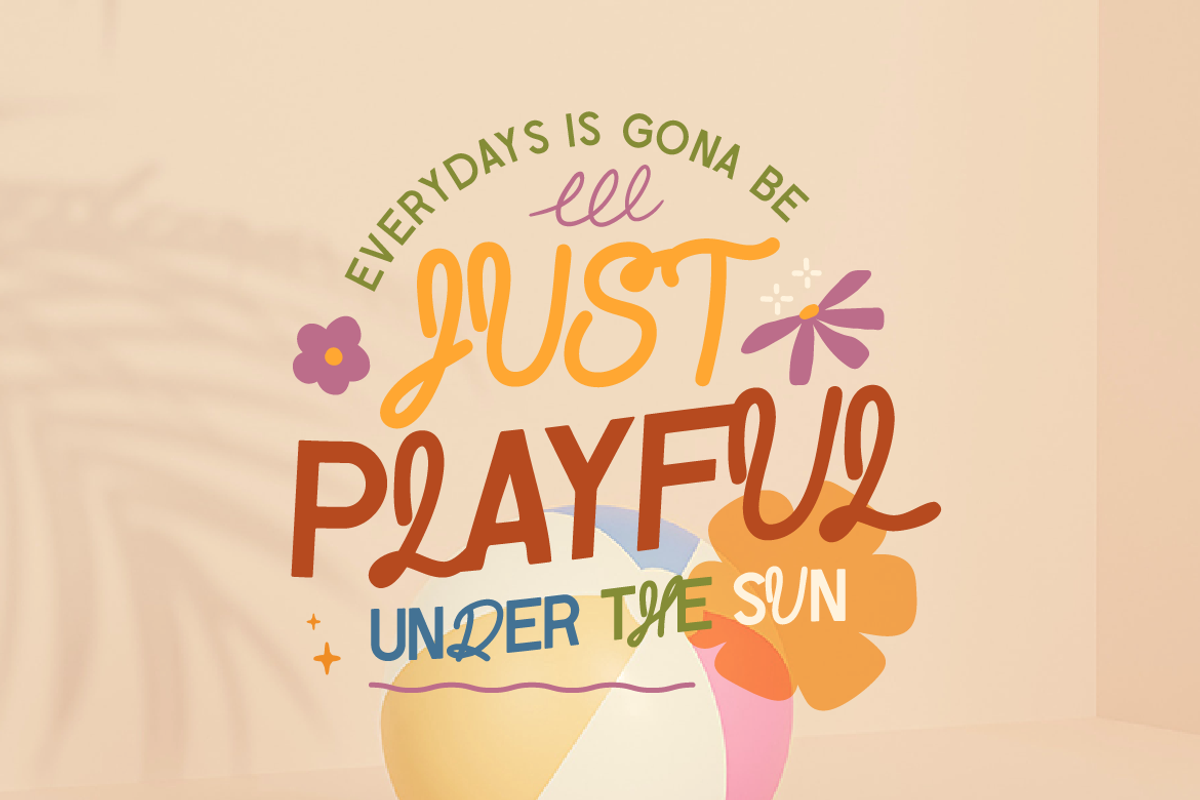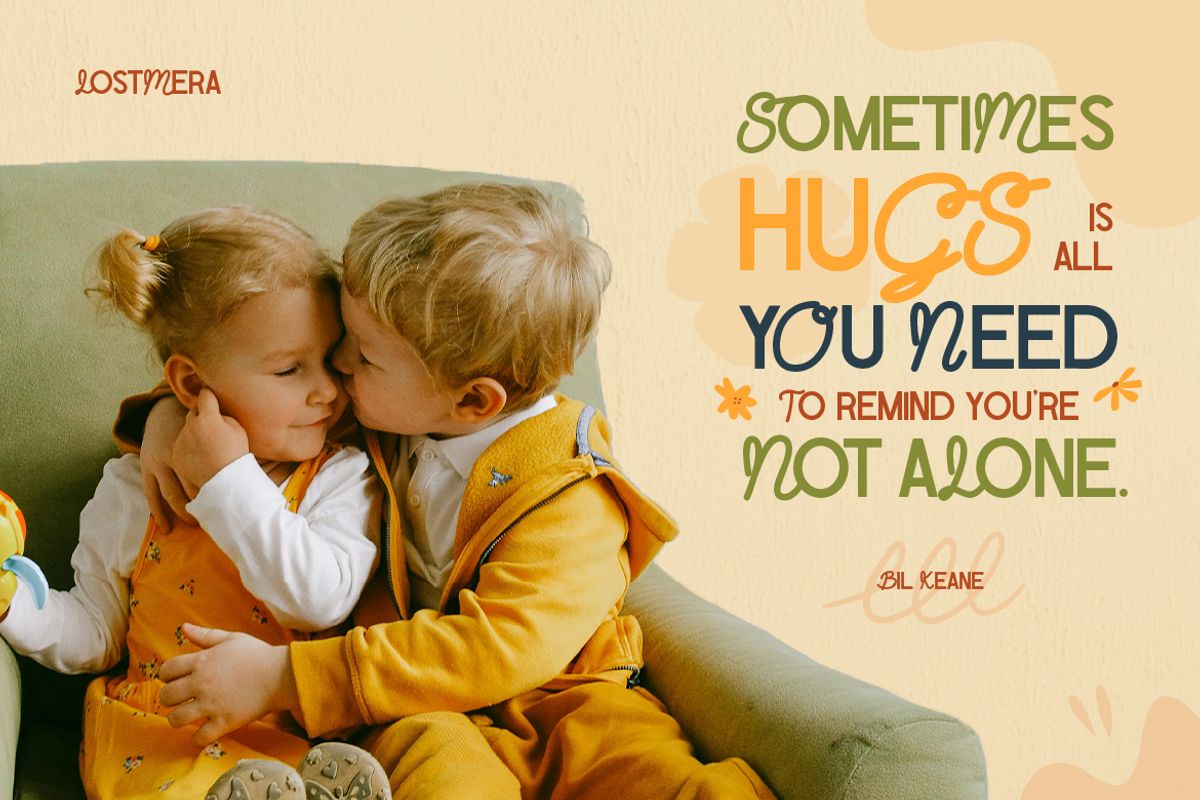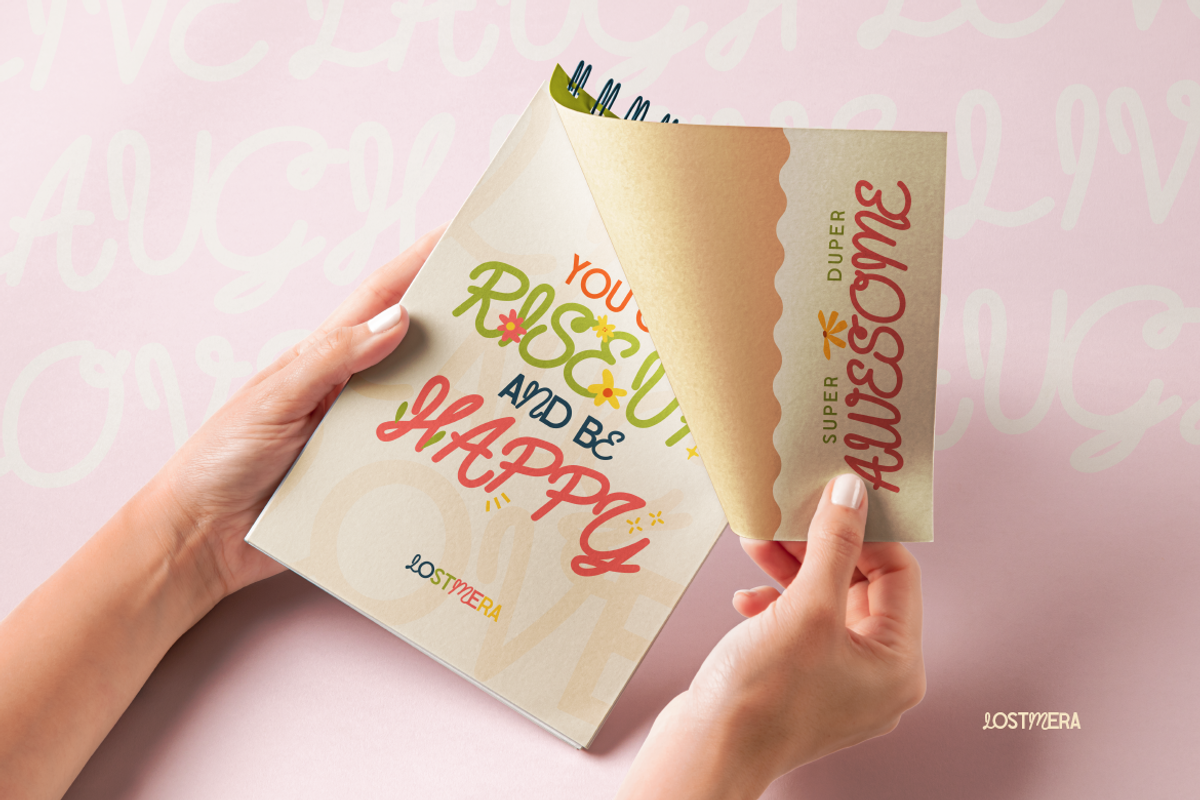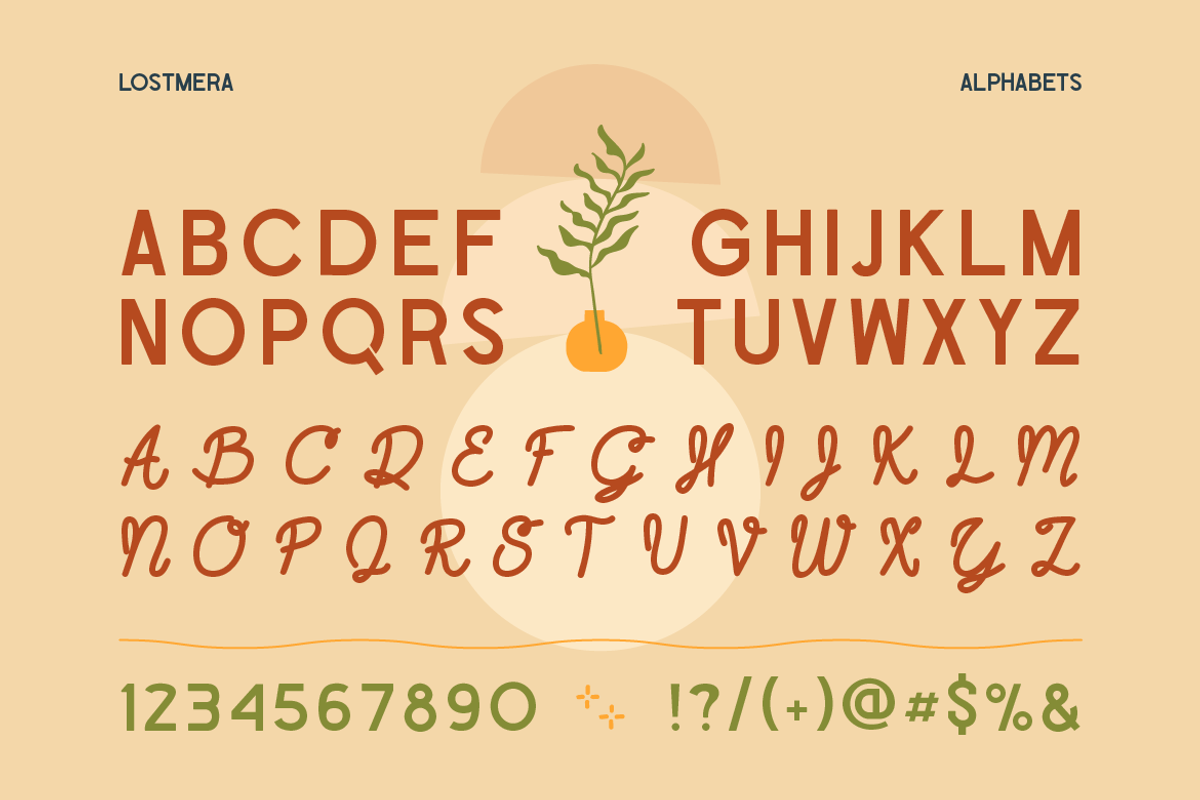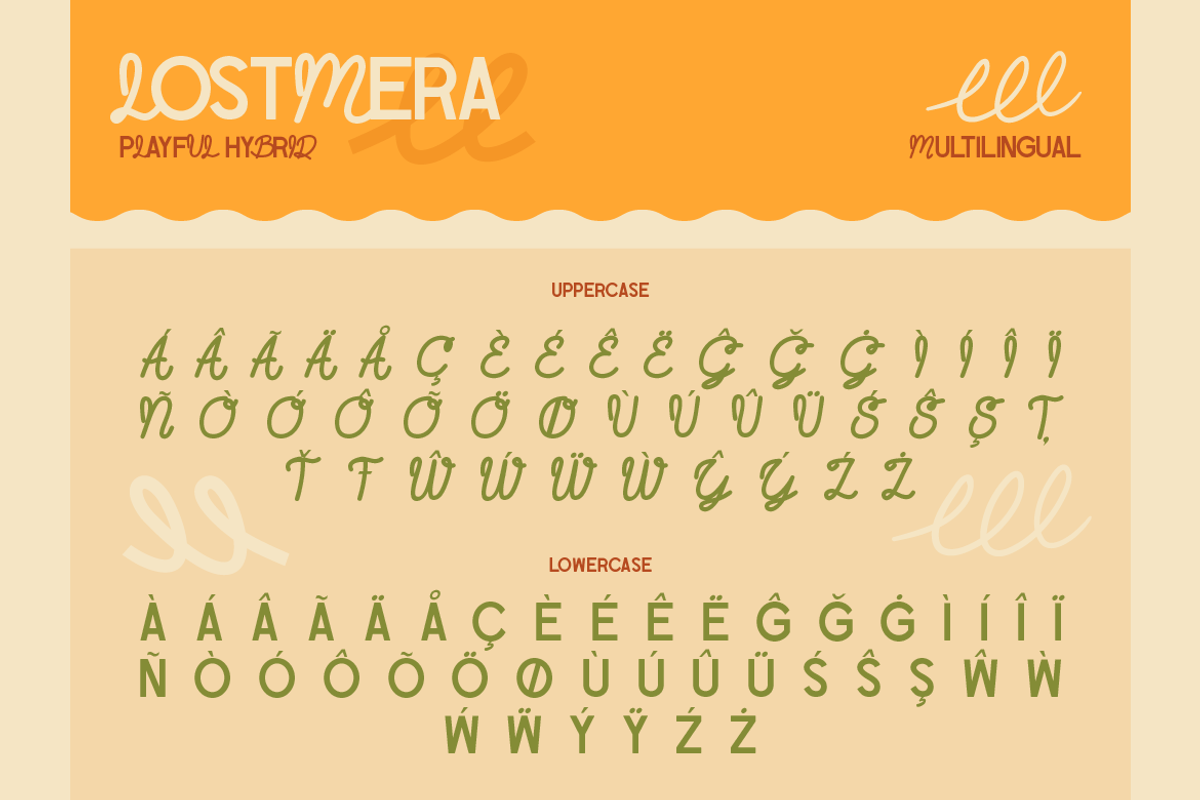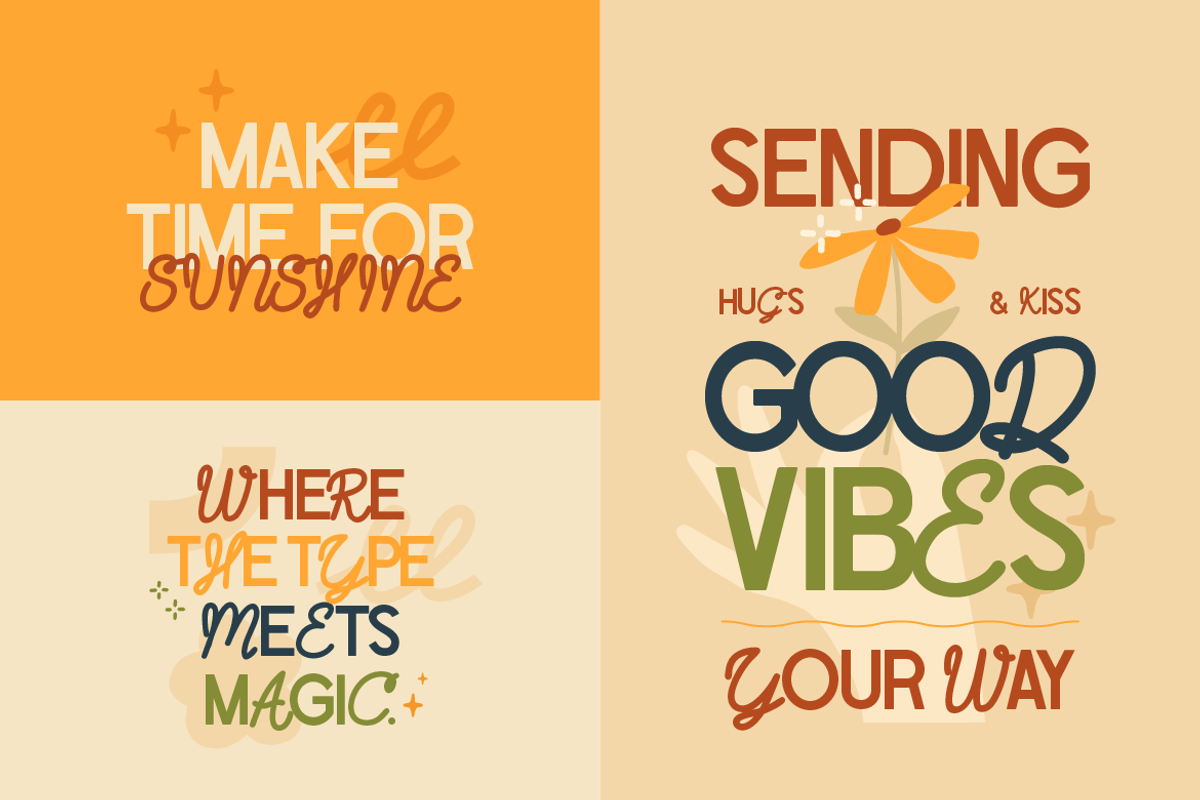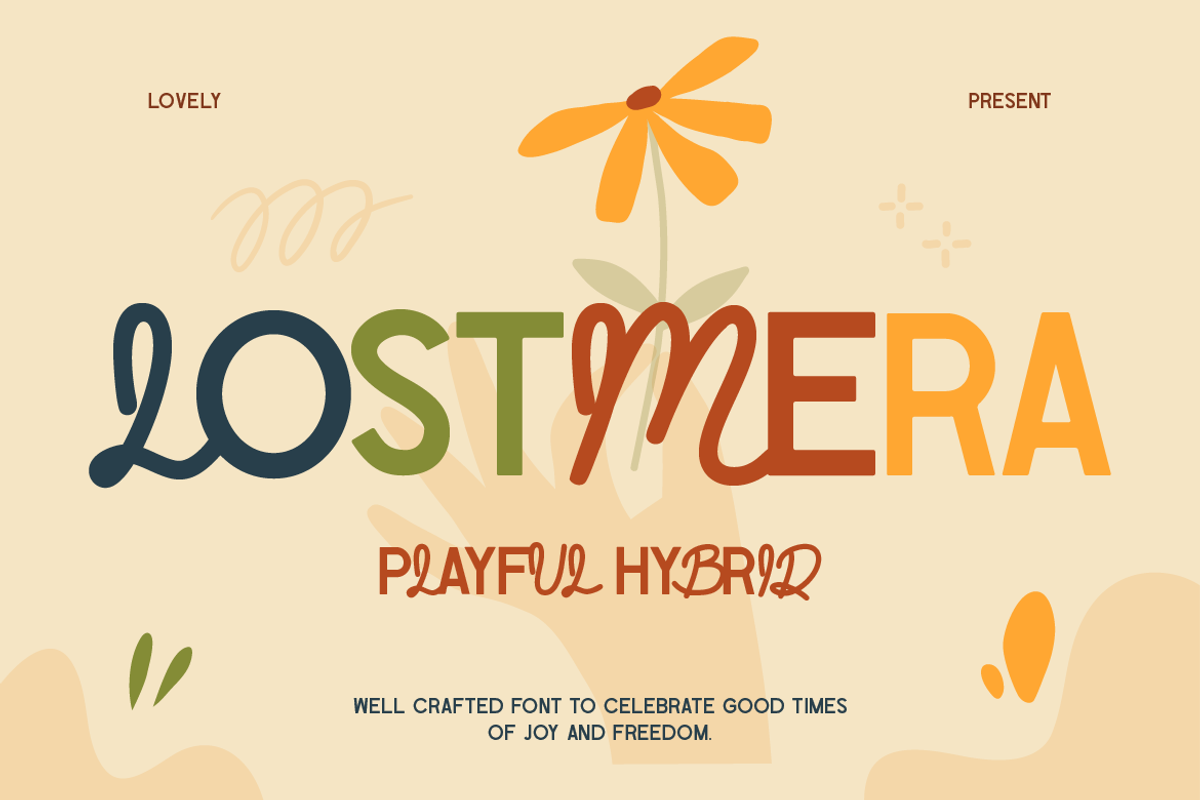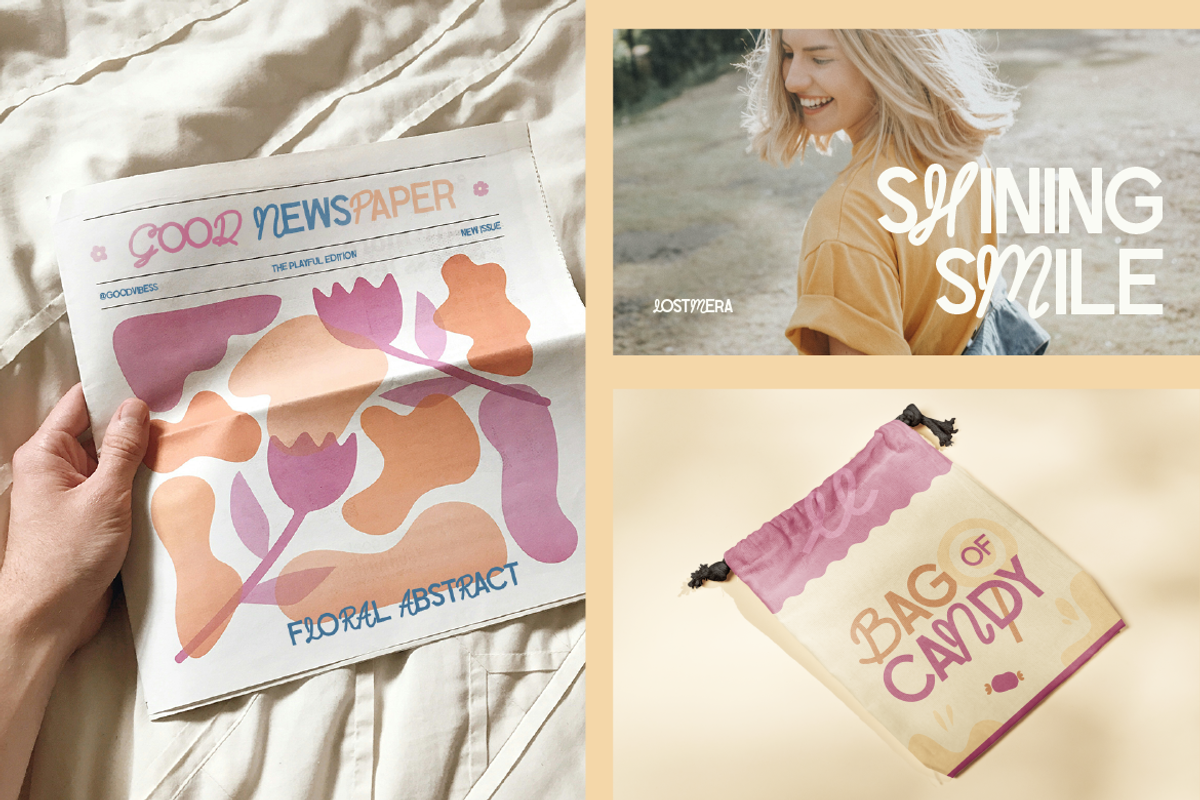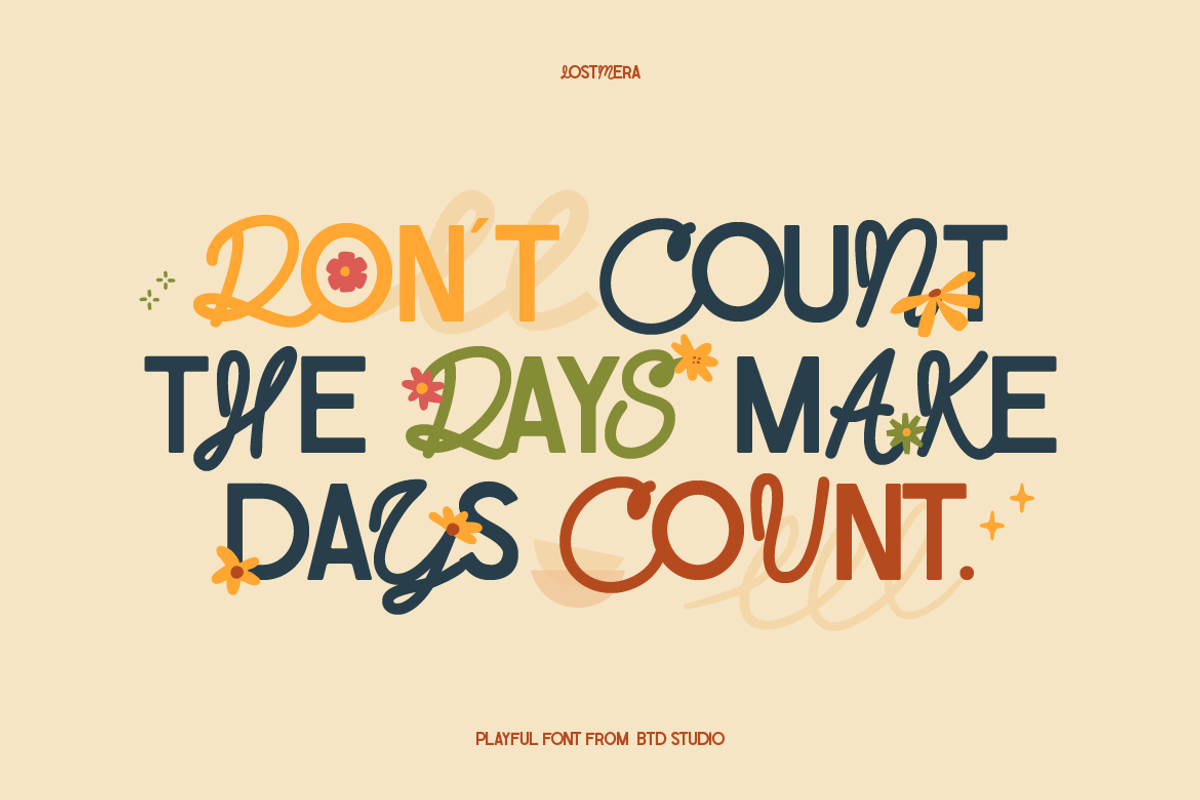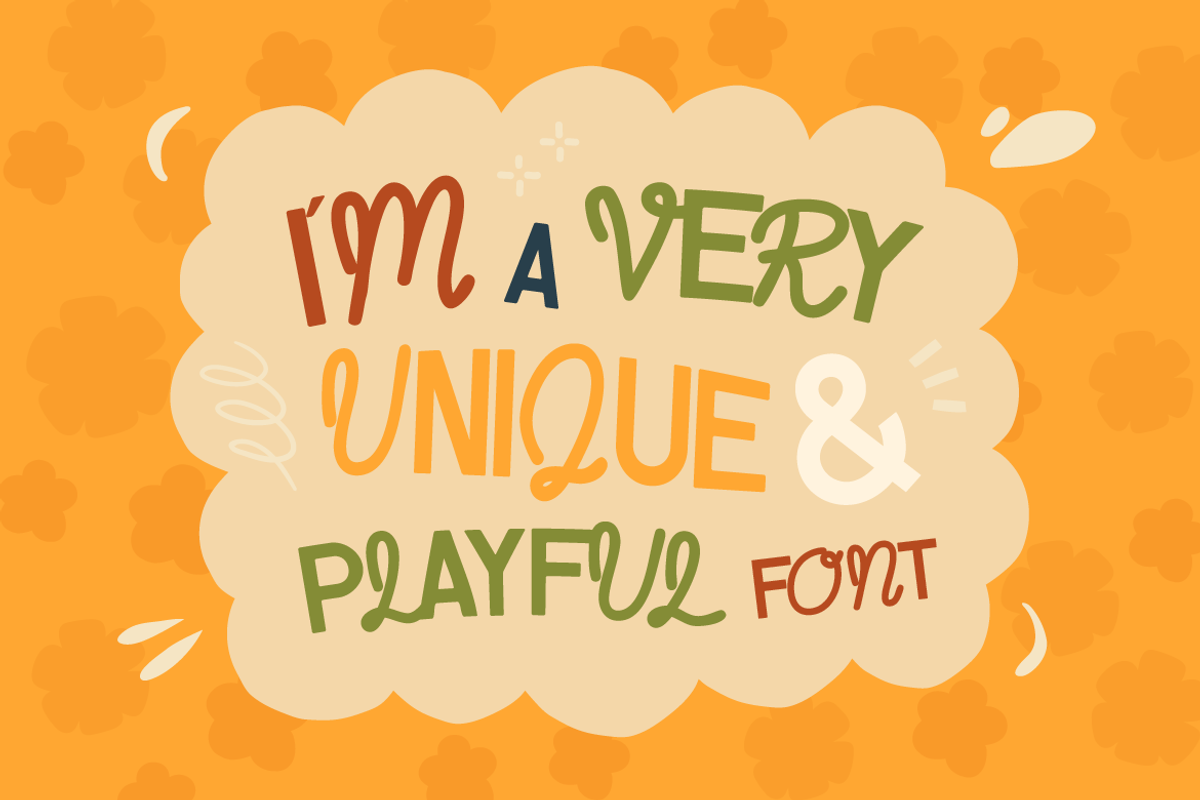
Lostmera
Say hello to Lostmera, a playful hybrid font of sans serif and script. This typeface is very unique with the clean lines of sans serif and the playful of script. Lostmera is characterized by fun shape and instantly bring a sense of joy and fun. Feel the magic of ligatures, it makes your design playful but still modern and lil bit sense of elegant and classy. So, Lostmera is well crafted font to celebrate good times of joy and freedom. Ideal for invitation, quotes, children’s book, t-shirt design, merchandise, fashion apparel, and any project to convey a sense of fun and excitement.